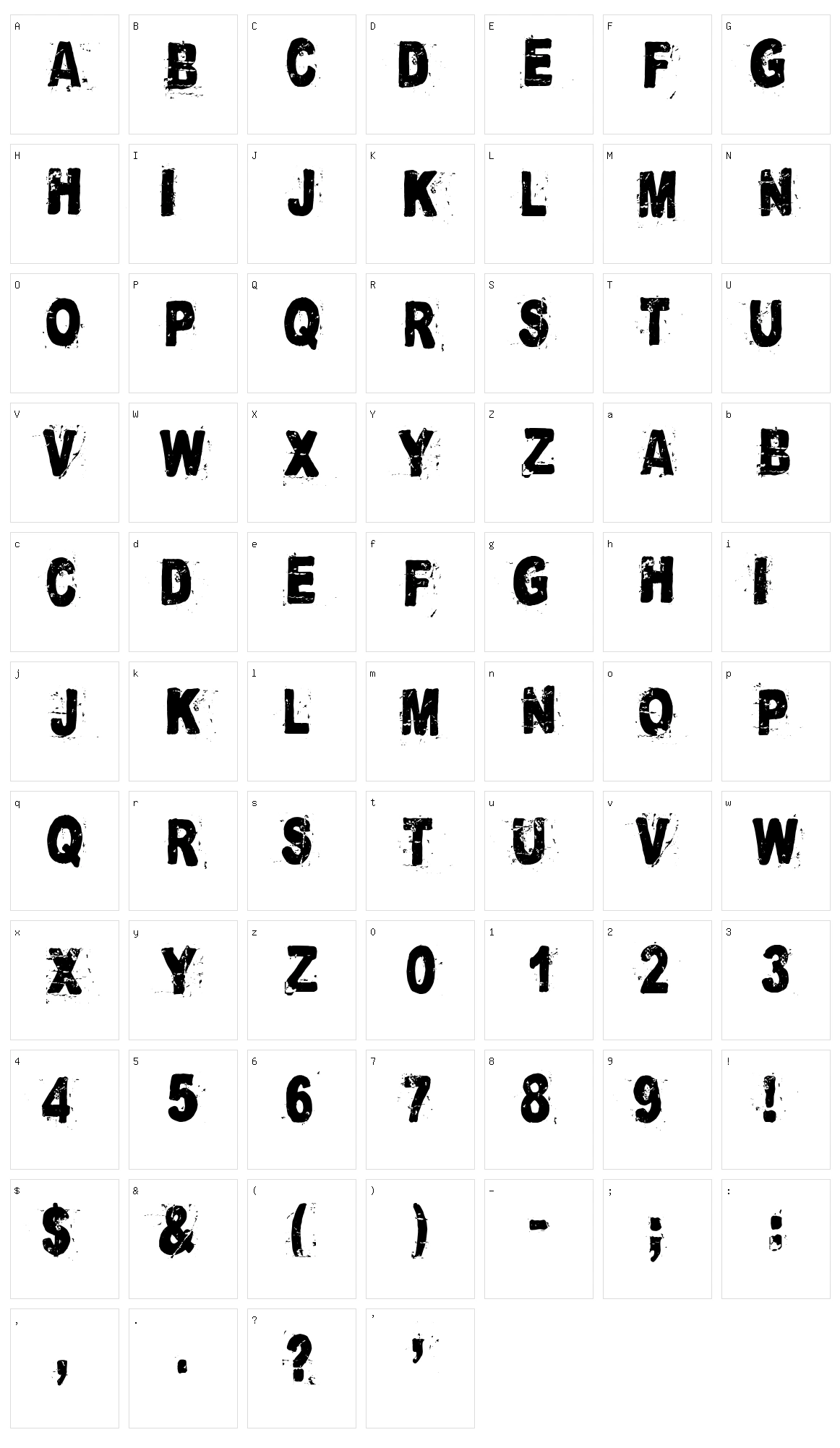
The free font Cataclysme is carefully designed by Cloutierfontes, showcasing a thoughtful balance of creativity and usability and falls under the Destroy font style. When you download the ZIP file, it contains only 110.4 KB of font files, making it lightweight and quick to download. Please review the license details below to understand permitted usage and distribution rights. If license information is not available, we recommend using this font for personal projects only or contacting the author directly for commercial usage permissions.